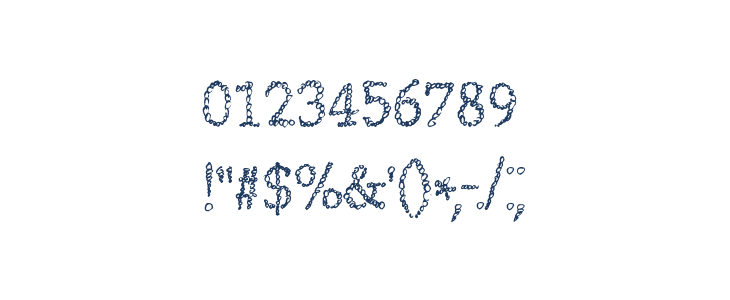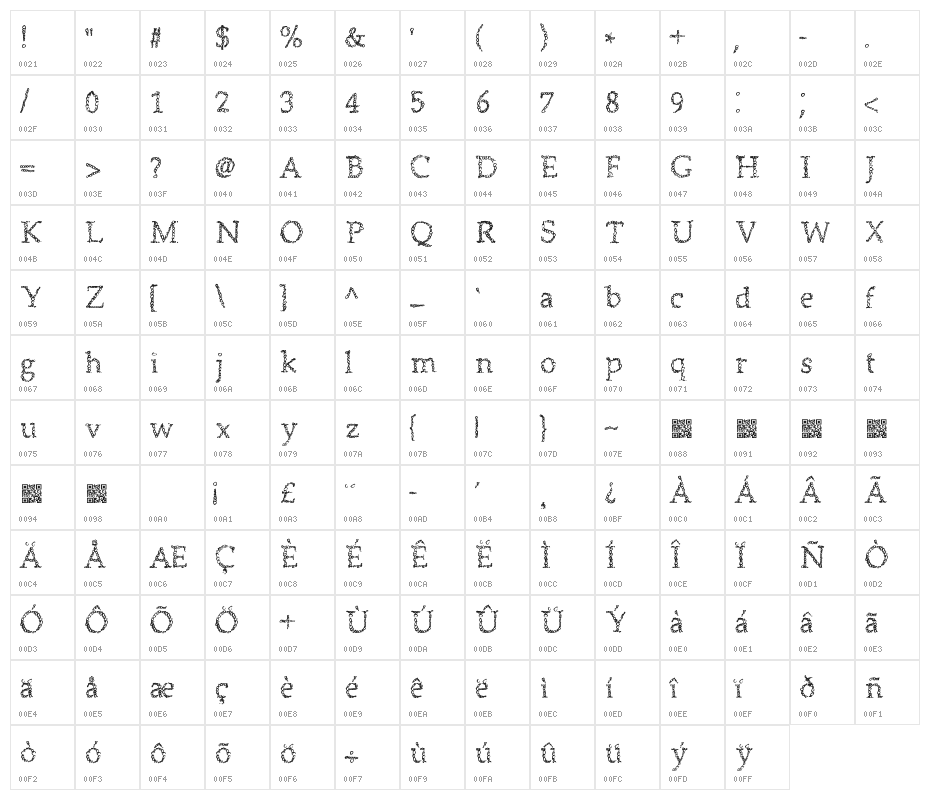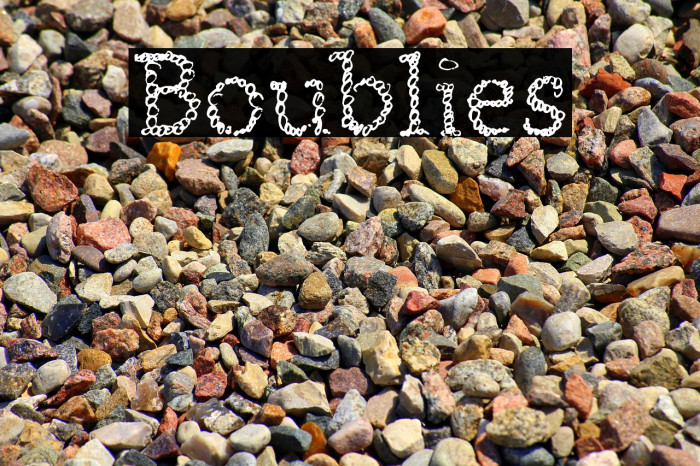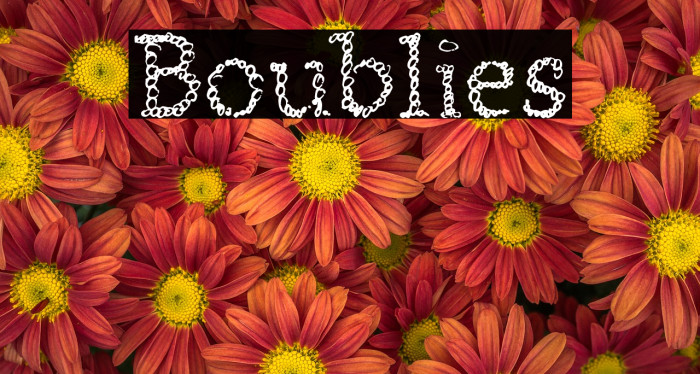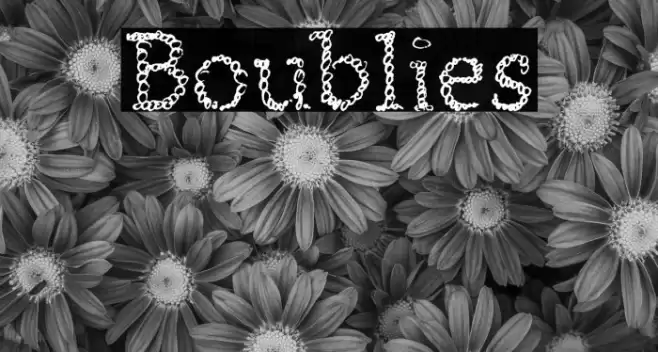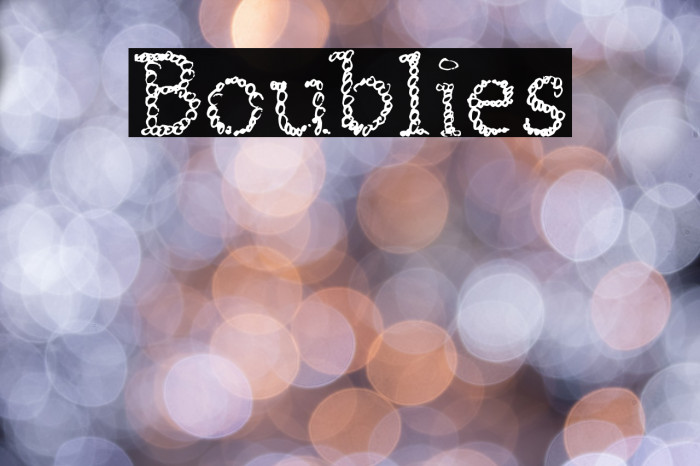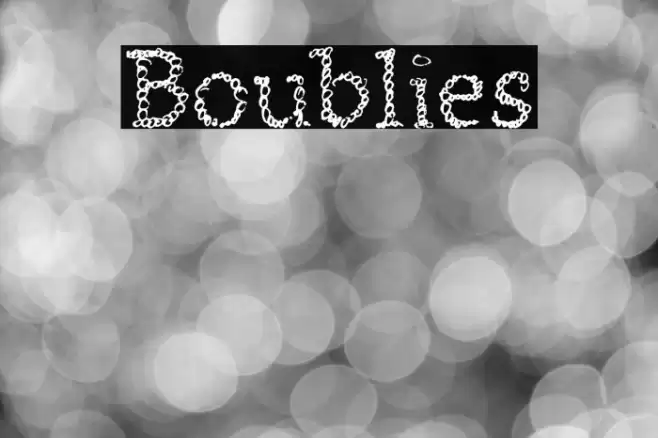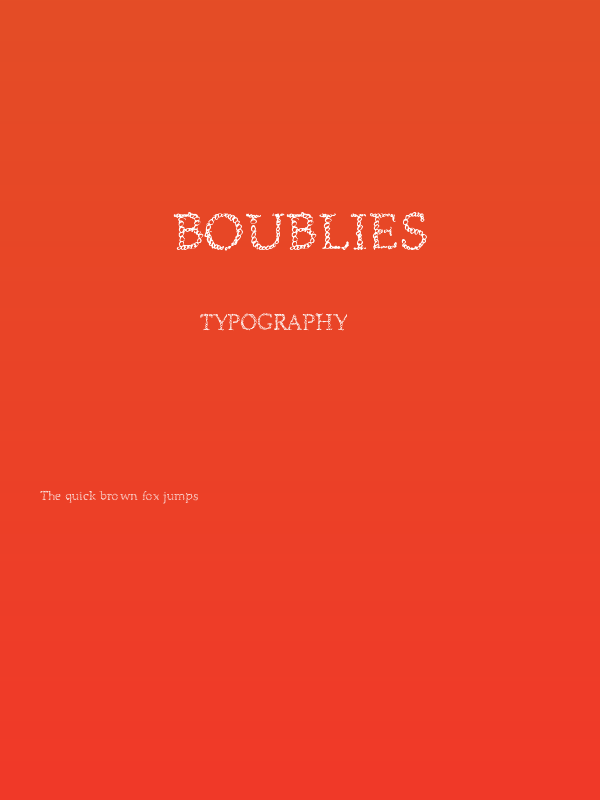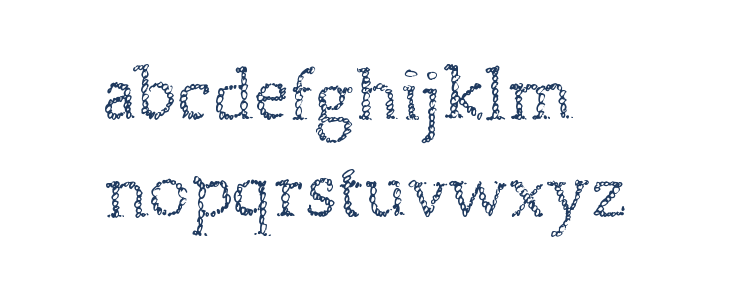
Boublies Font
Boublies Description
This font features a playful and whimsical design, characterized by its unique bubble-like texture that forms each letter and symbol. The characters are composed of small, interconnected circles, giving the font a lively and dynamic appearance. The uppercase and lowercase letters maintain a consistent style, with rounded edges and a slightly irregular form that enhances its playful nature. Numbers and special characters follow the same design principles, ensuring a cohesive look across all elements. The font's distinctive style makes it stand out, offering a creative and fun option for various design projects.